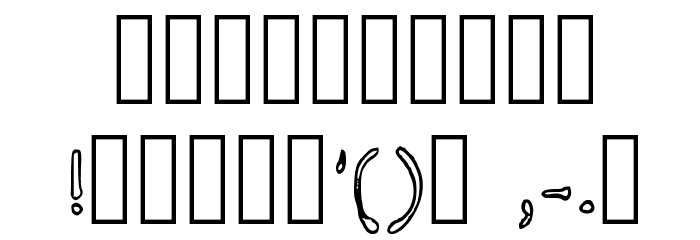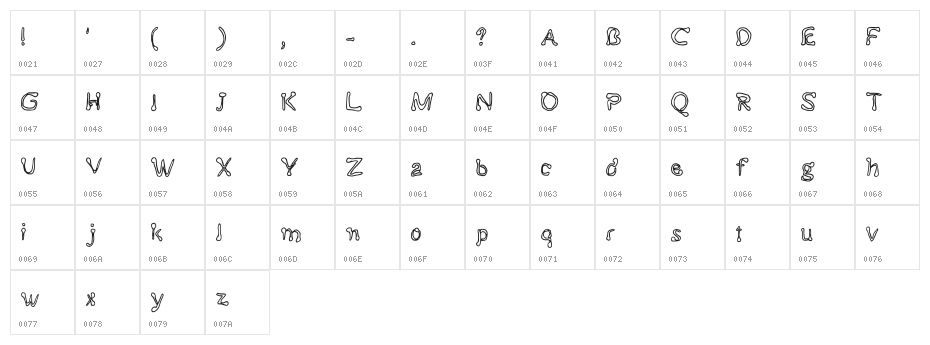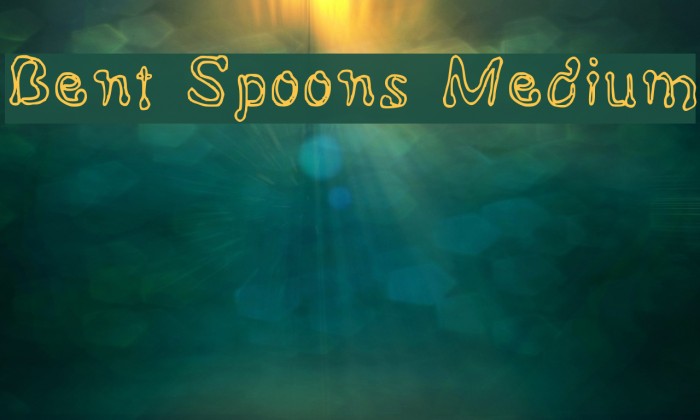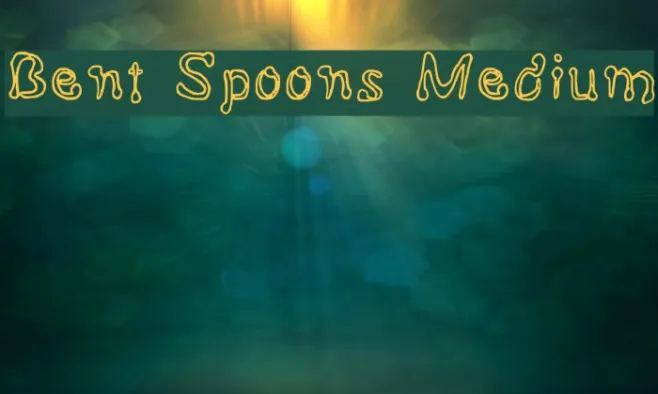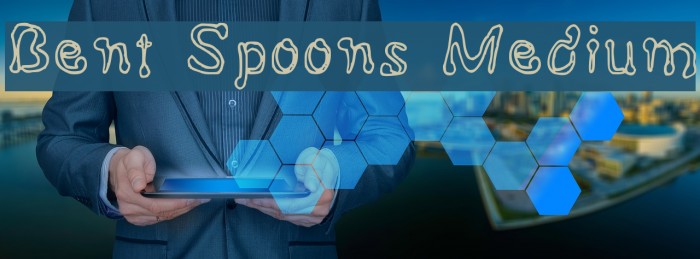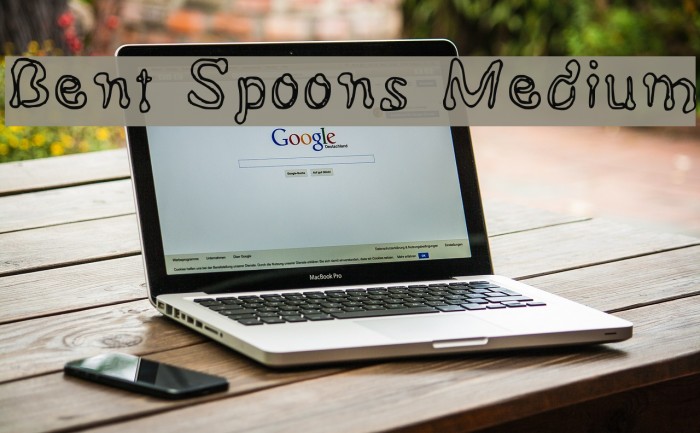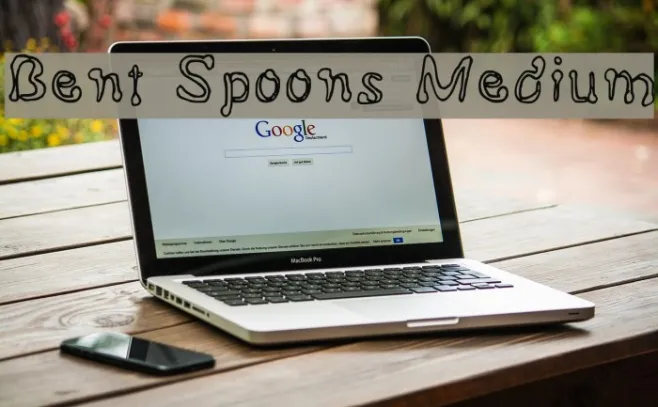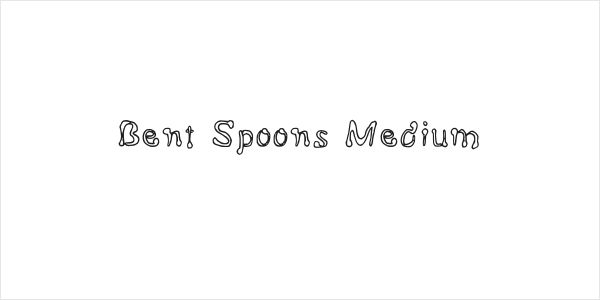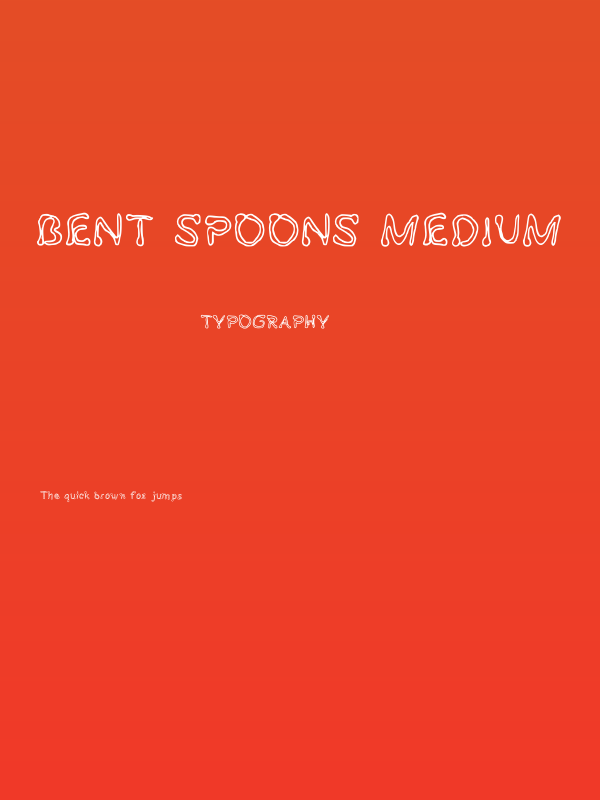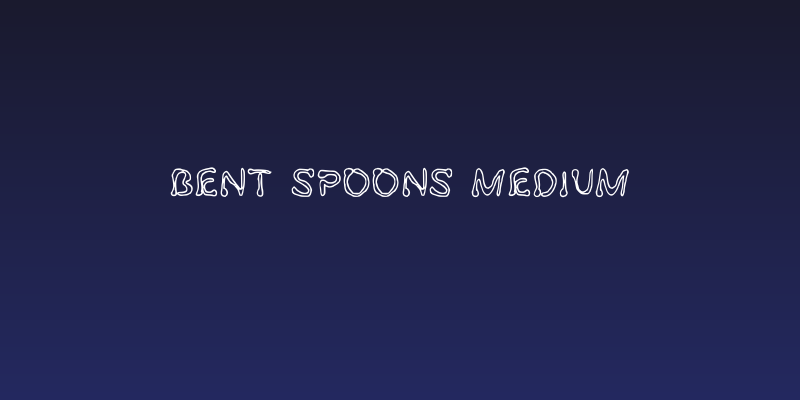
Bent Spoons Medium Font
Bent Spoons Medium Description
This font features a playful and quirky design, with each character resembling a bent spoon. The letters have a hand-drawn, uneven quality, giving them a unique and whimsical appearance. The strokes are irregular, with varying thickness that adds to the font's charm. The uppercase and lowercase letters maintain a consistent style, while the numbers and special characters complement the overall design. This font's distinctive look makes it stand out, offering a creative and artistic touch to any project.
| Overall Style | Whimsical |
| Use Case | Logos, Posters, Creative Projects |
| Proposed Projects | Ideal for children's books, creative posters, playful branding, and artistic invitations. |